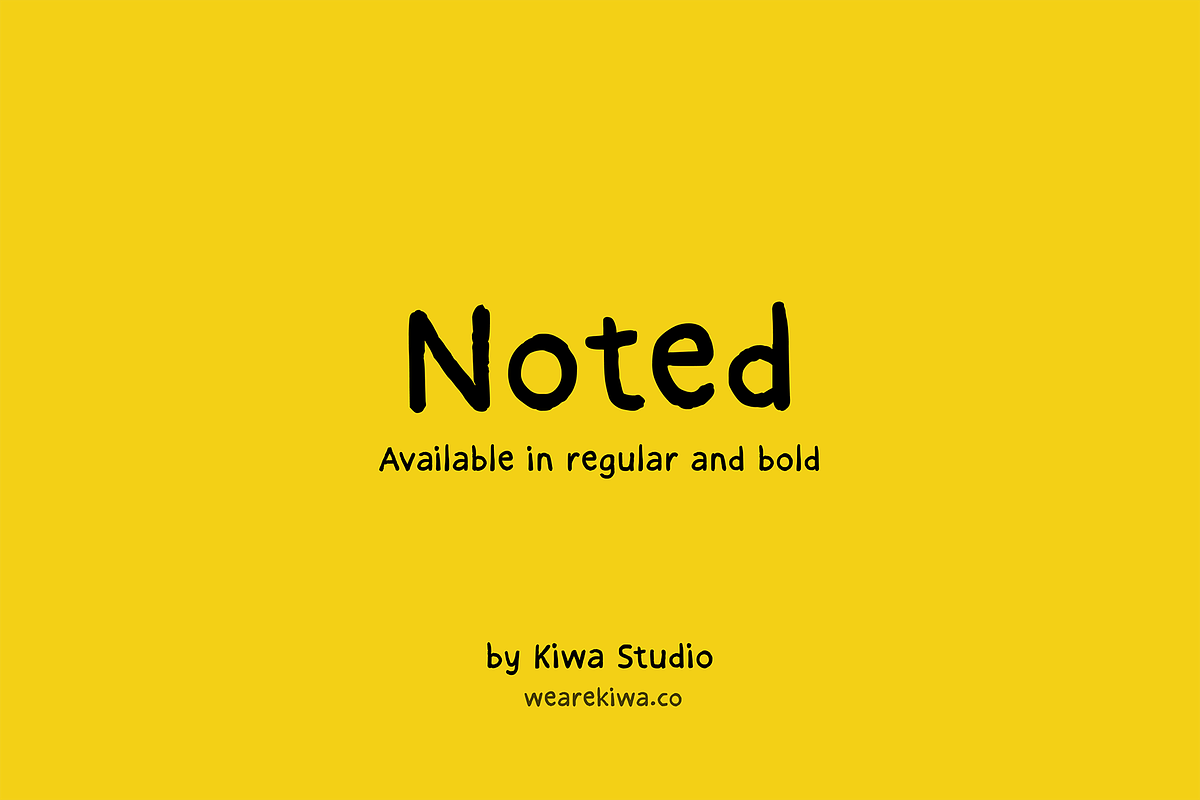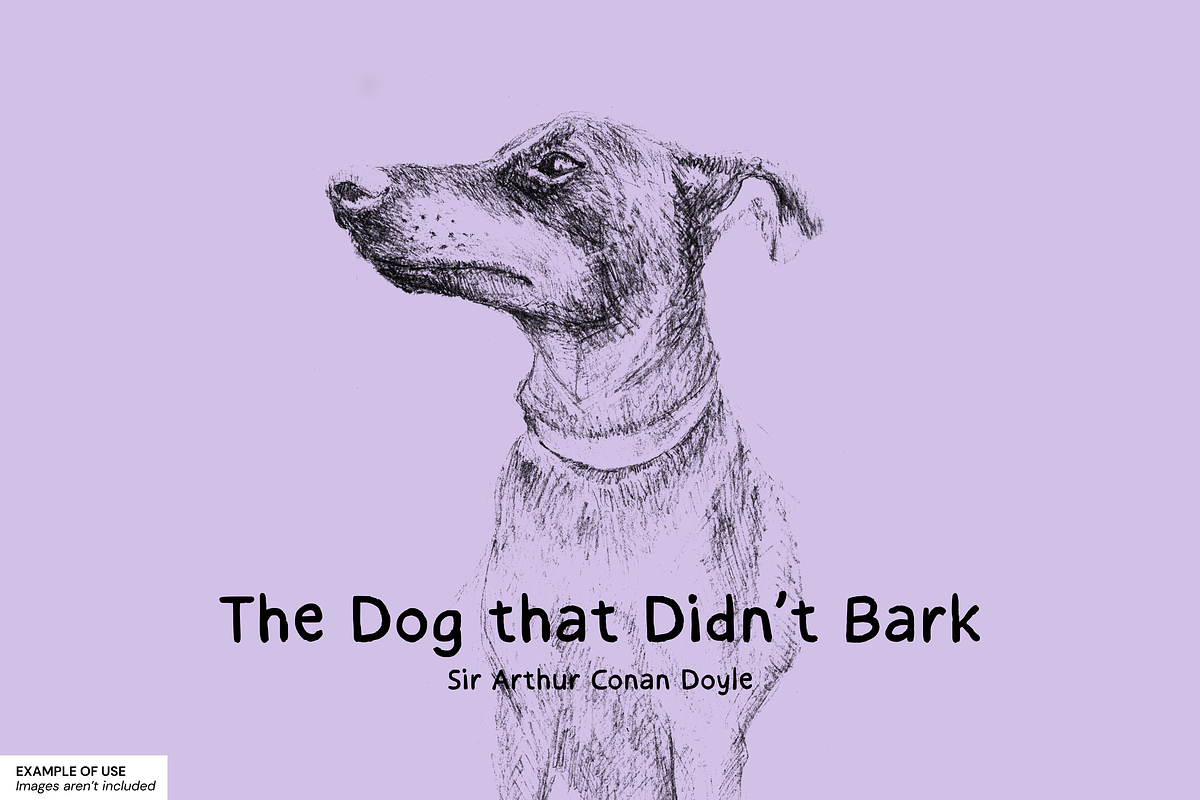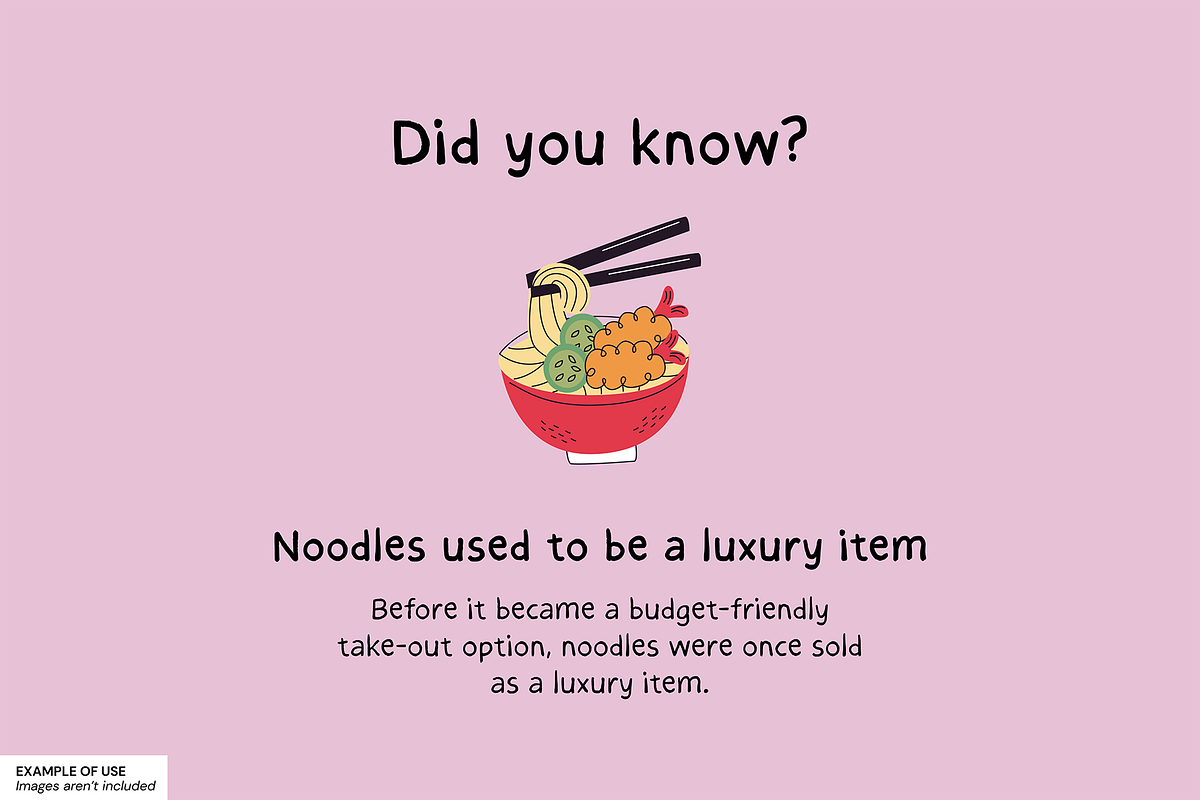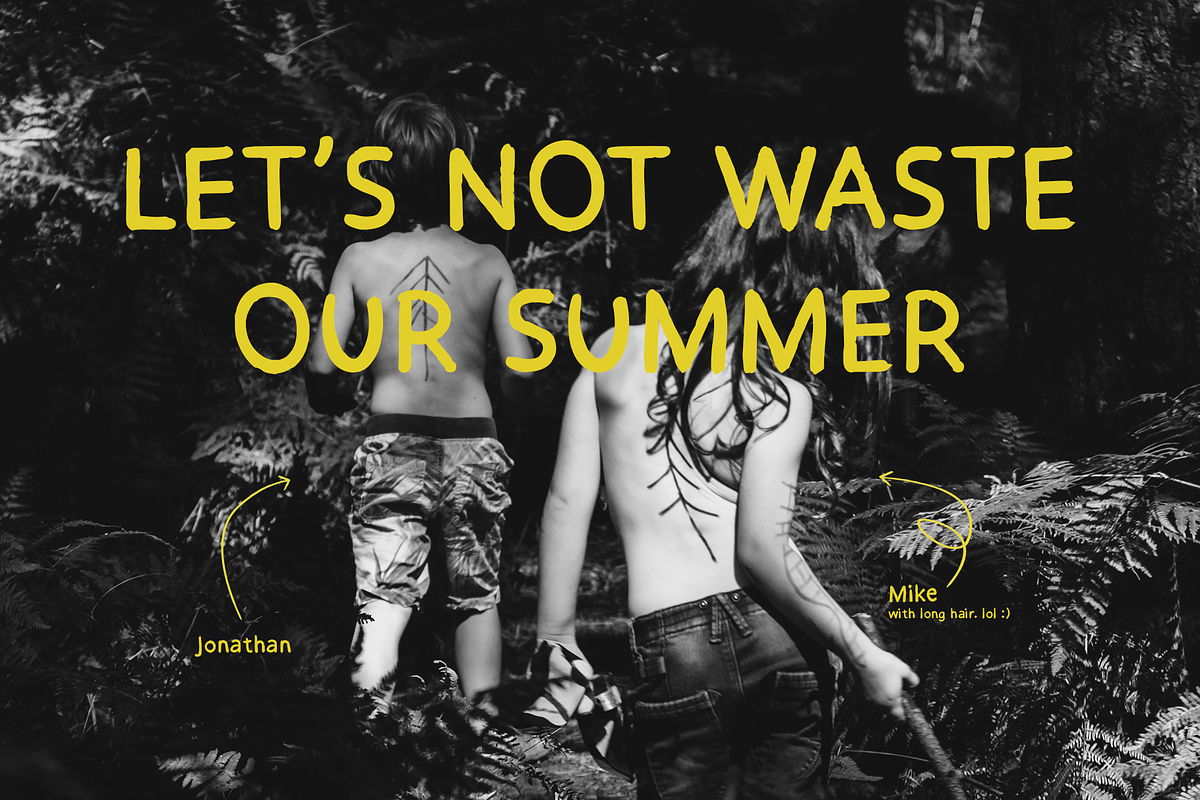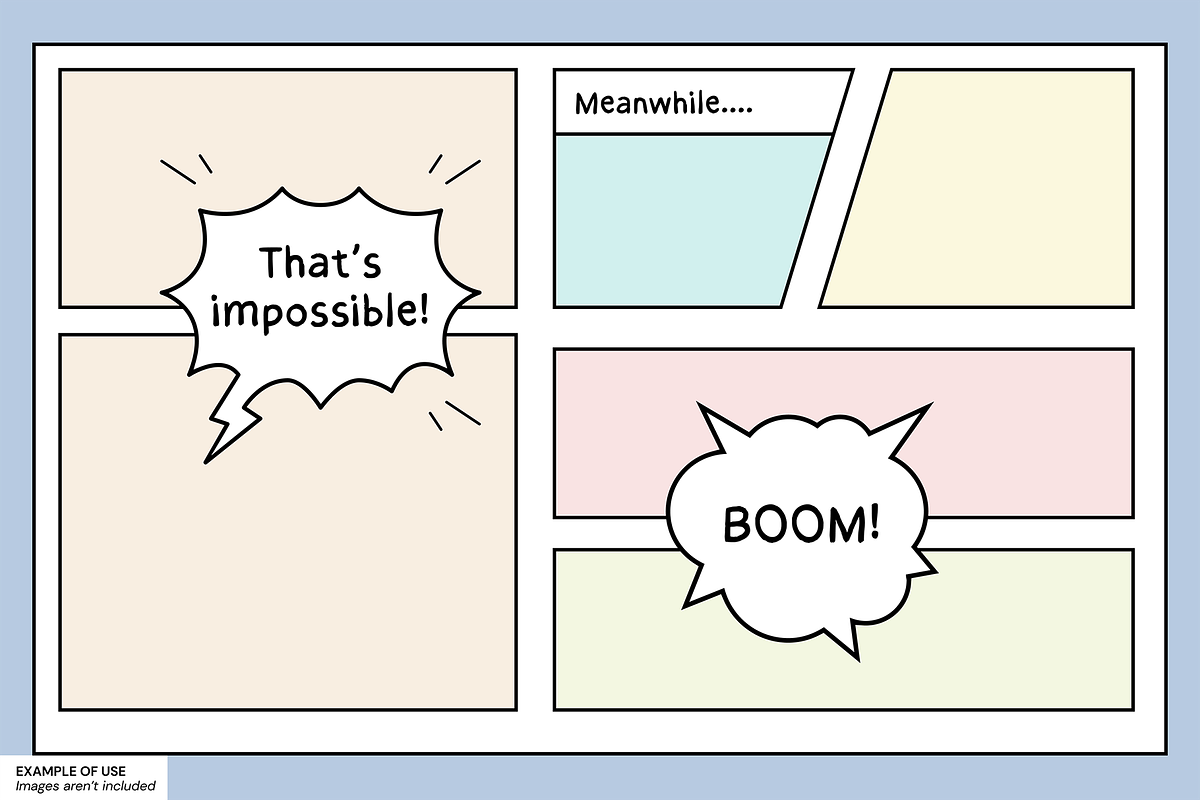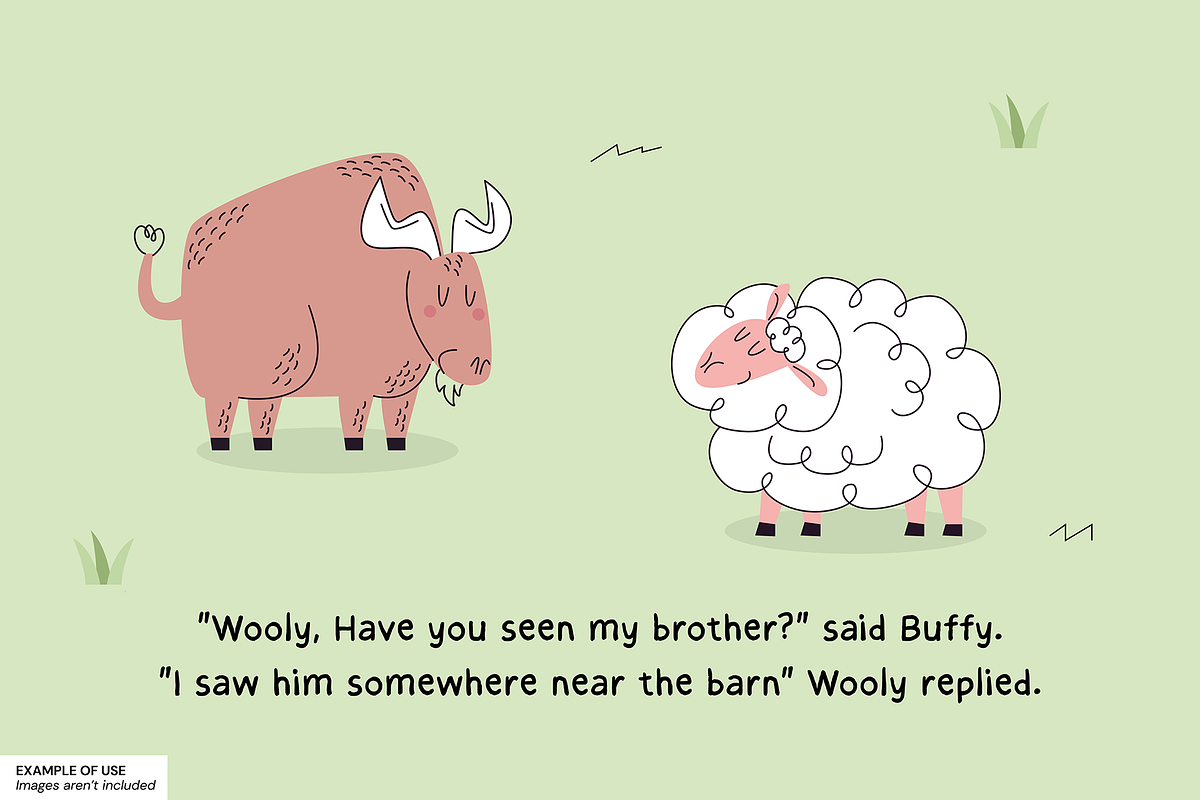
Noted - Playful Handwriting Font
✨Noted✨ is playful handwriting font by Kiwa Studio. Perfect font to create fun graphics such as children books, comic, infographic, instagram posts/story, presentation, printable graphics, notes, quotes, cards and many more.
- Available in Regular and Bold.
- Full Set of standard alphabet and punctuation